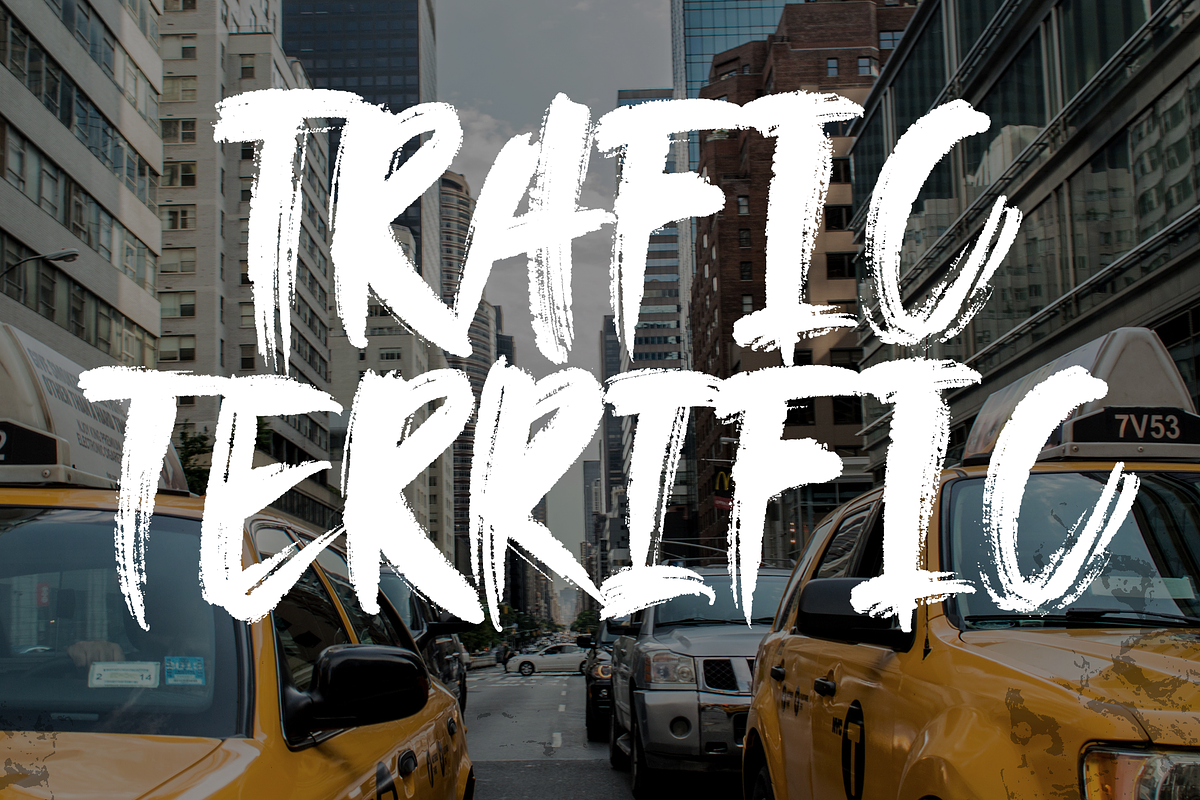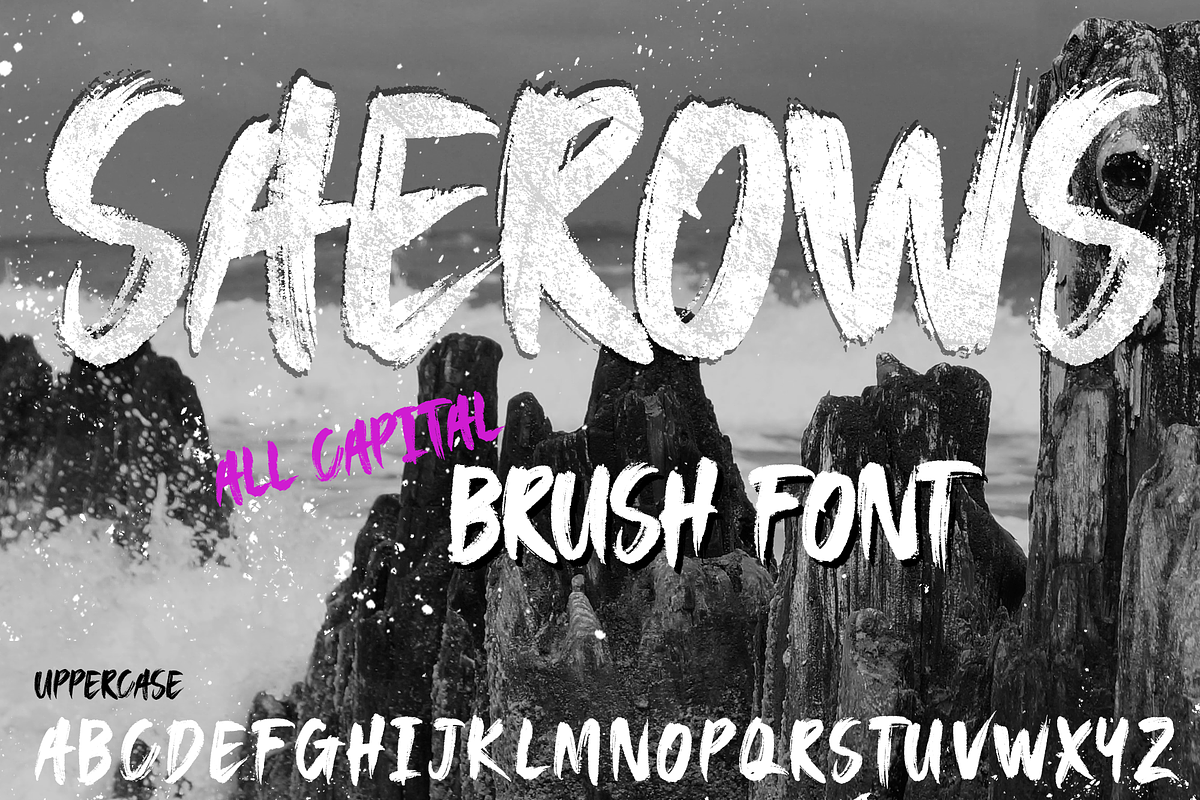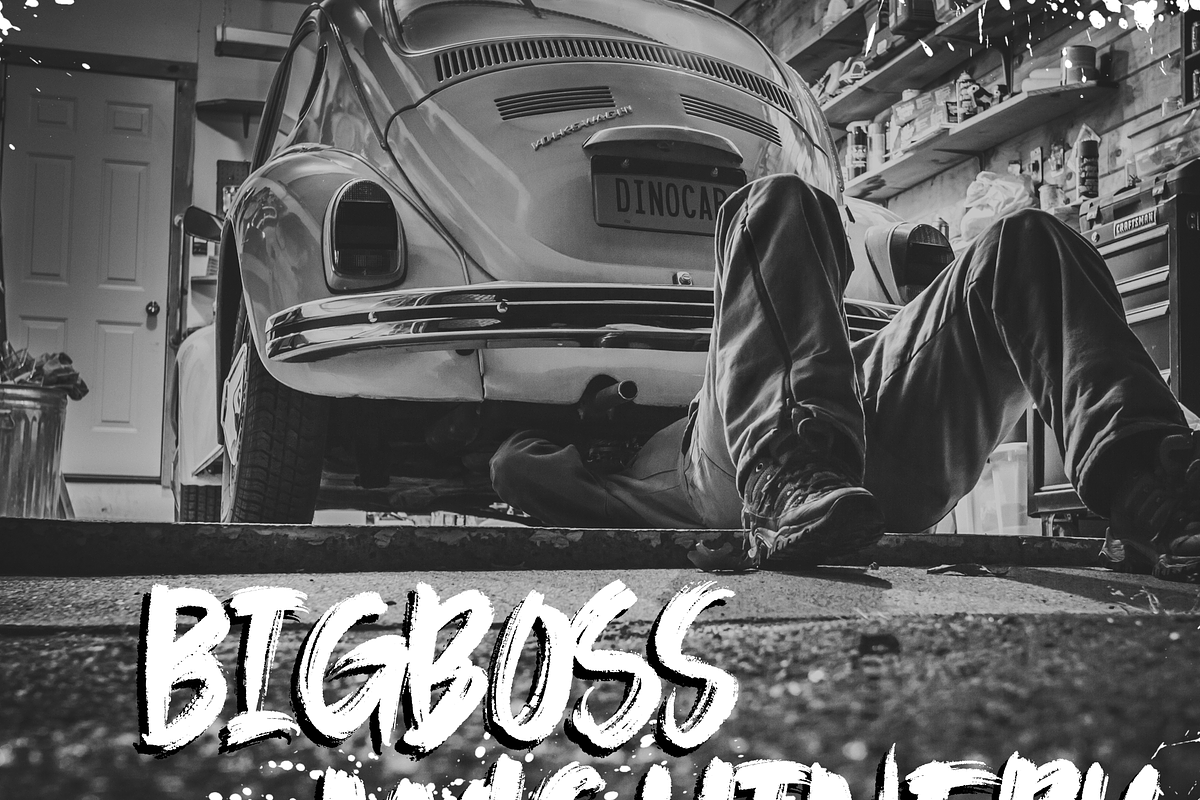
SAEROWS - Brush Font
All-Caps Brush typeface effects that fits on your project to looks one-of-a kind.
SAEROWS - Brush Font by CCONCEPTLAB fits naturally into Branding, posters, packaging, typography.